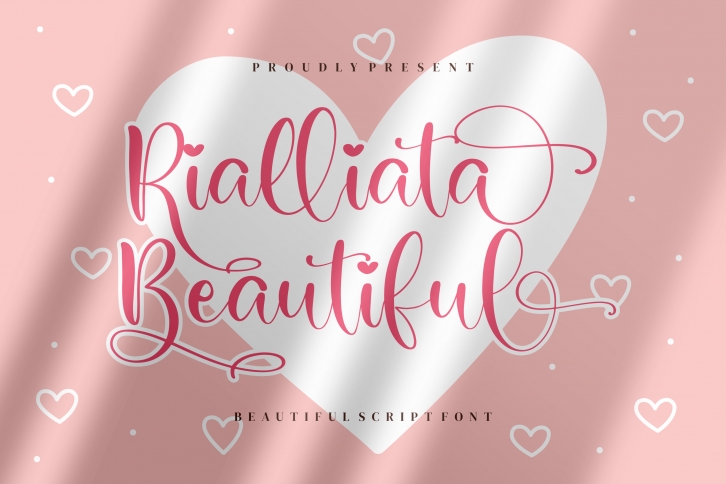
Rialliata Beautiful is a sweet and cursive handwritten font. This gentle font will look gorgeous on a variety of design ideas. It is PUA encoded which means you can access all of the glyphs and swashes with ease!Â